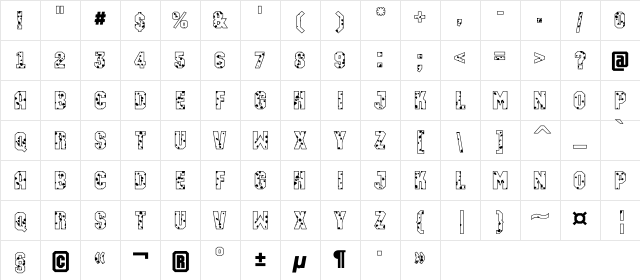
Complete a_MachinaOrtoSpt Regular glyph index. Displaying only characters natively supported by a_MachinaOrtoSpt Regular font.
a_MachinaOrtoSpt is a composed and adaptable typeface that performs quietly and consistently across a wide range of design contexts.